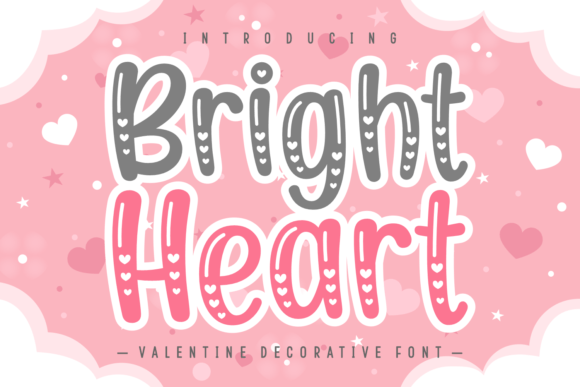
The Sweetest Font for Valentine’s Day: A Deep Dive into Bright Heart Font
Ah, Valentine’s Day – a time for love, chocolates, and thoughtful gestures. As designers, crafters, and creative hobbyists, we’re always on the lookout for that perfect font to make our projects shine. I still remember the year I was working on a Valentine’s Day-themed invitation project, and I just couldn’t find the right font to capture the sweetness and playfulness of the occasion. My client wanted something that would make their loved ones feel special, and I was determined to deliver. That’s when I stumbled upon the Bright Heart Font, and it instantly stole my heart! 💕
An Honest Review of Bright Heart Font
So, what makes Bright Heart Font so special? Let’s dive into the good stuff and, of course, a few quirks I’ve noticed.
- ✨ Cute and Playful Design: Bright Heart Font is a beautiful, Valentine’s Day-themed decorative font that’s perfect for creating festive typography.
- ✅ High Versatility: This font is suitable for a wide range of projects, including invitations, greeting cards, advertising materials, DIY gifts, fabric prints, and more.
- 💖 Emotional Connection: The font’s sweet and charming design is sure to evoke feelings of love and warmth, making it perfect for Valentine’s Day and other romantic occasions.
While Bright Heart Font is an excellent choice for many projects, there are a few things to keep in mind:
- ⚠️ Limited Use Outside of Valentine’s Day: Due to its specific theme, this font might not be the best choice for projects outside of Valentine’s Day or other romantic occasions.
- 🤔 Glyph and Character Set: As with any font, it’s essential to explore the glyph and character set to ensure it includes all the characters you need for your project.
The Backstory Behind Bright Heart Font
Bright Heart Font was designed with love and care by a talented type designer who wanted to create a font that would capture the essence of Valentine’s Day. The designer’s inspiration came from traditional Valentine’s Day cards, with a dash of modern playfulness. The result is a font that’s both nostalgic and fresh, perfect for a wide range of creative projects.
Q: What type of projects is Bright Heart Font best suited for?
A: Bright Heart Font is perfect for Valentine’s Day-themed projects, such as invitations, greeting cards, and DIY gifts. It’s also great for romantic occasions, like anniversaries and weddings.
Q: Is Bright Heart Font available in different styles or weights?
A: While Bright Heart Font might not have multiple styles or weights, it’s designed to be versatile and adaptable. Experiment with different font sizes, colors, and effects to achieve the desired look.